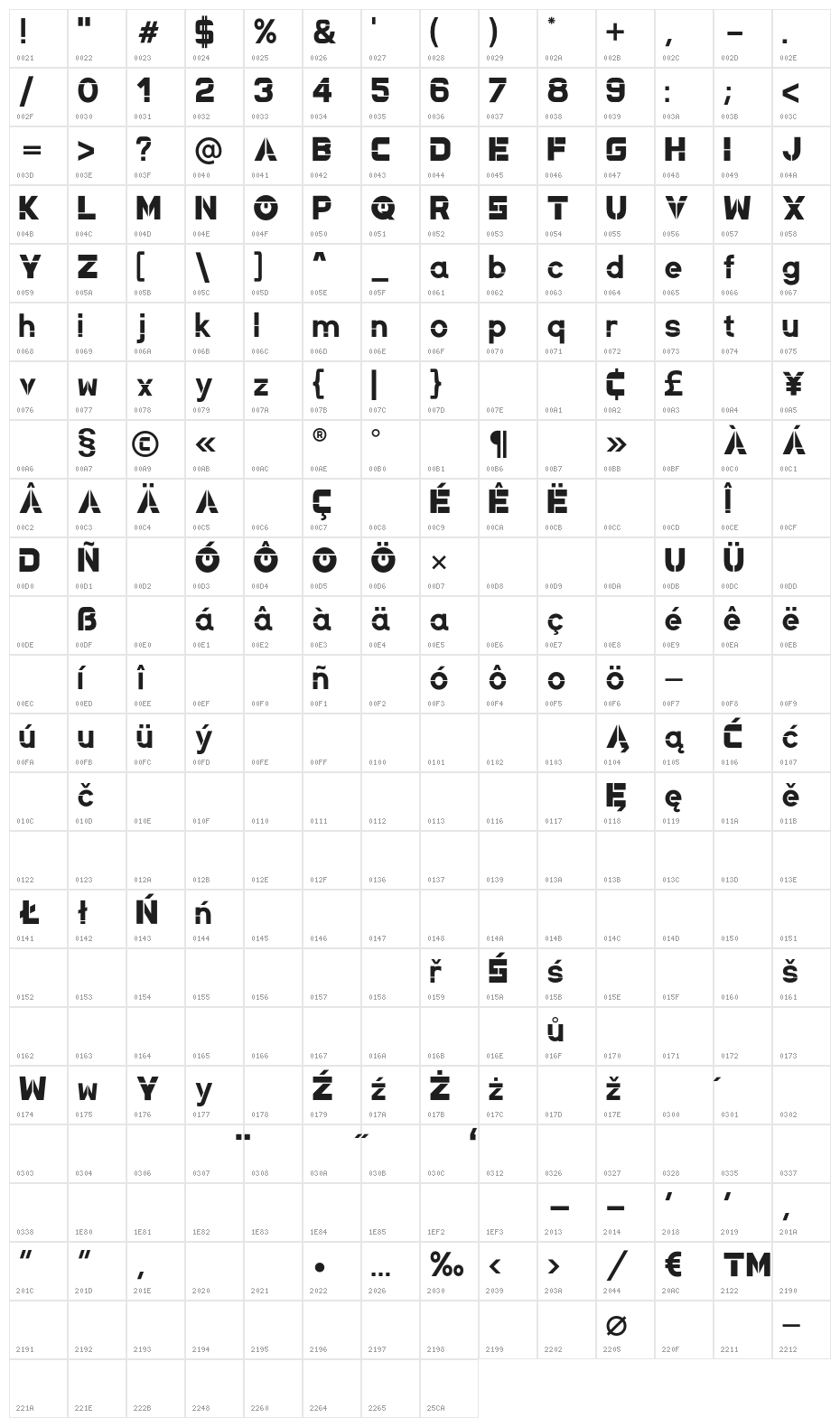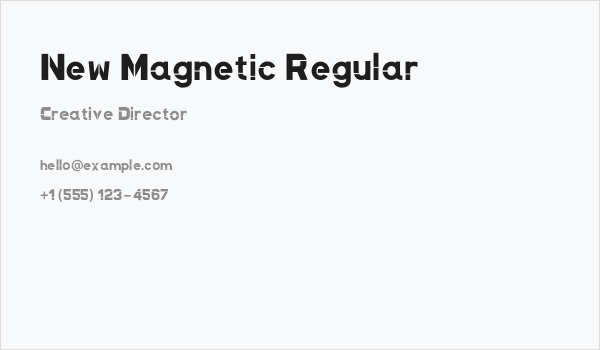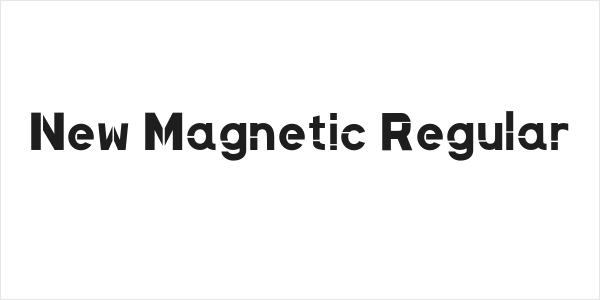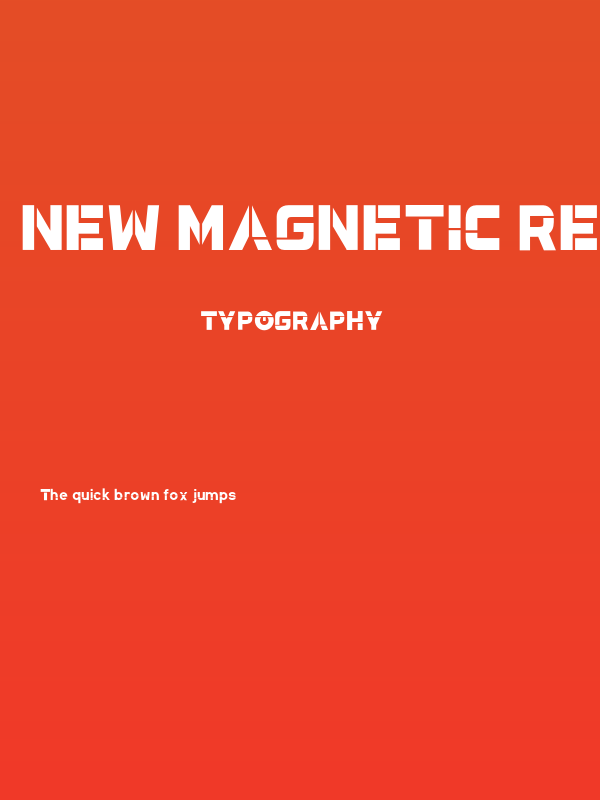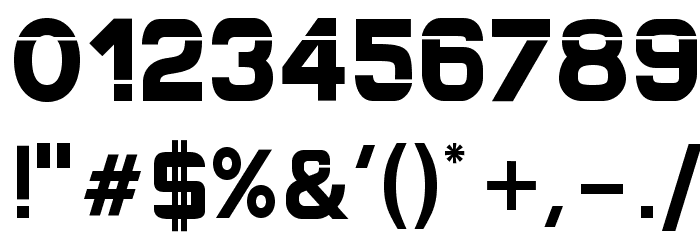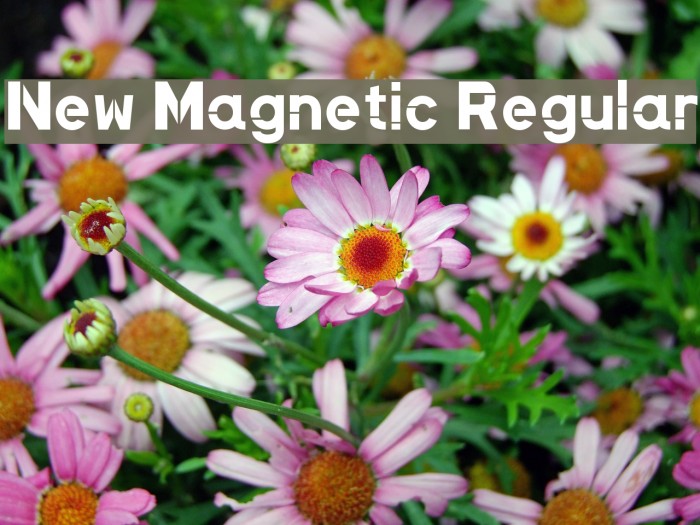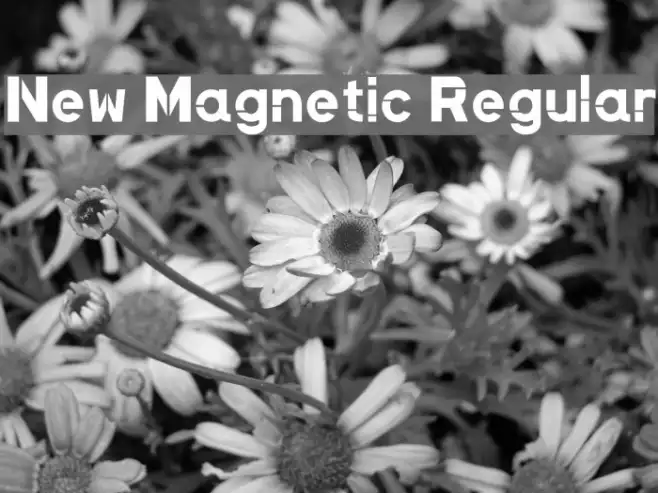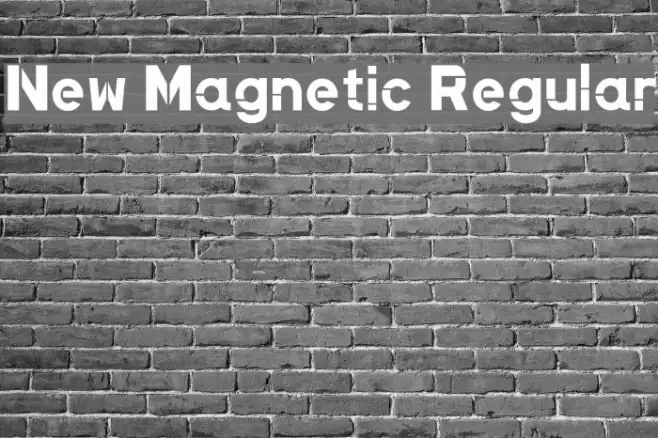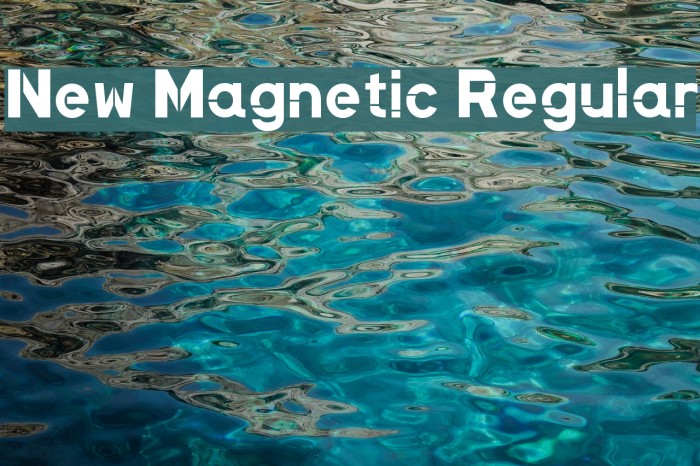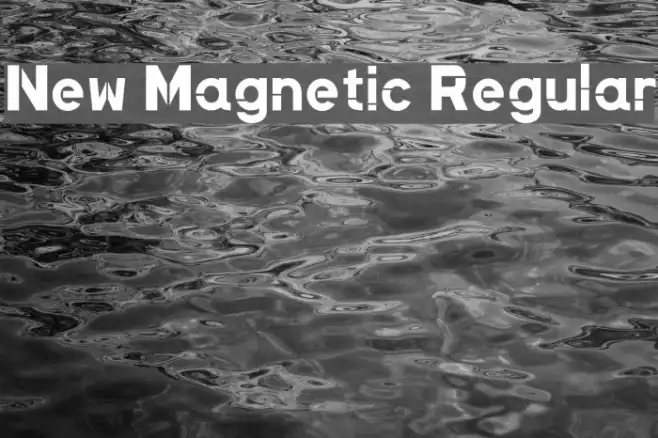
New Magnetic Regular Font
New Magnetic Regular Description
This font features a bold, geometric design with a futuristic aesthetic. The uppercase letters are characterized by sharp angles and unique cutouts, giving them a modern and edgy appearance. The lowercase letters maintain a similar style, with consistent thickness and rounded edges that contrast with the angular uppercase. Numbers and special characters follow the same design principles, ensuring a cohesive look across all elements. The font's distinct style makes it ideal for projects that require a strong visual impact.
| Proposed Projects | Ideal for branding, posters, headlines, and any design project that requires a modern and impactful typeface. |